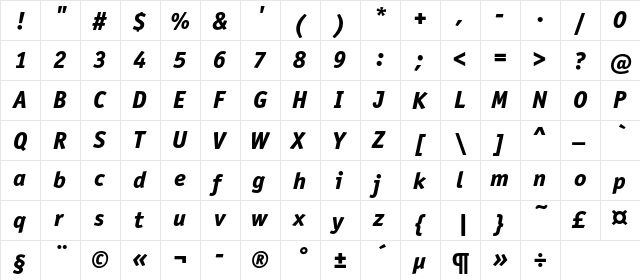
OfficinaSansExtraBoldC Italic
Design Context for OfficinaSansExtraBoldC Typeface
OfficinaSansExtraBoldC offers clean, dependable letterforms without strong stylistic allegiance, making it a practical choice for designers who need flexibility. The slanted form adds forward momentum and visual energy. Its bold stroke weight gives it real presence on the page.
Pro Tip: Use OfficinaSansExtraBoldC for emphasis, pull quotes, and subheadings where its slanted energy can add rhythm to the layout.